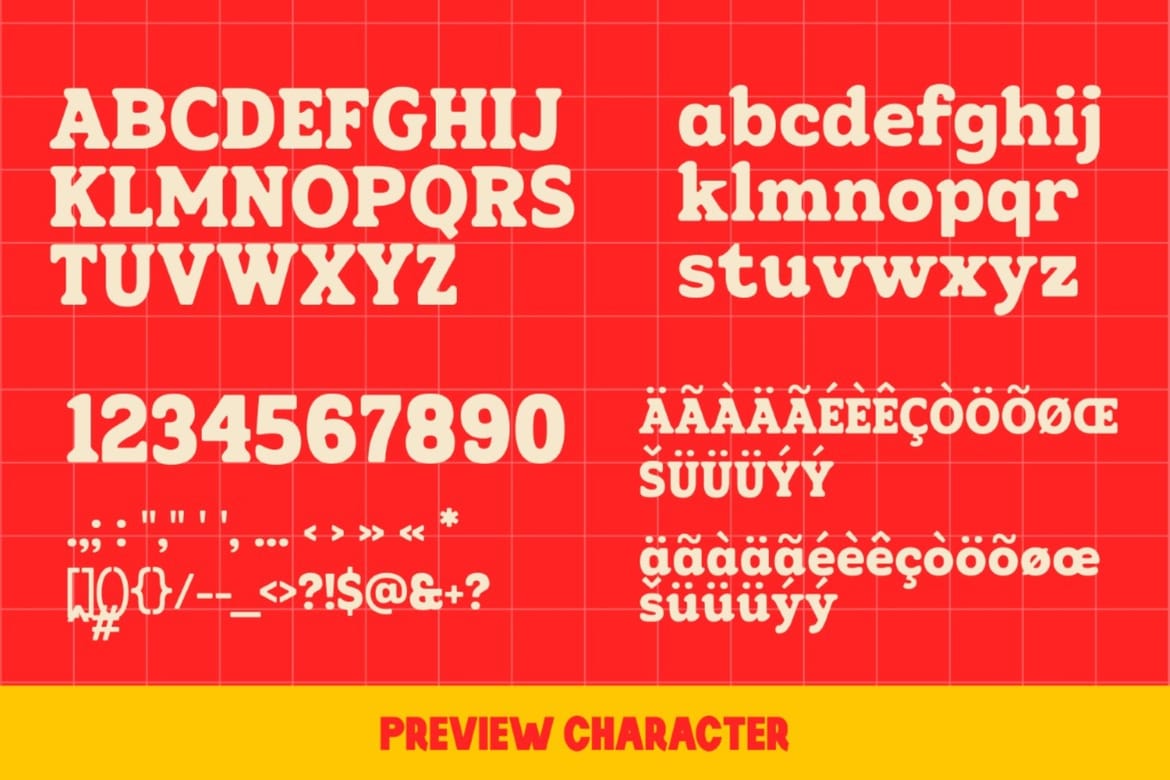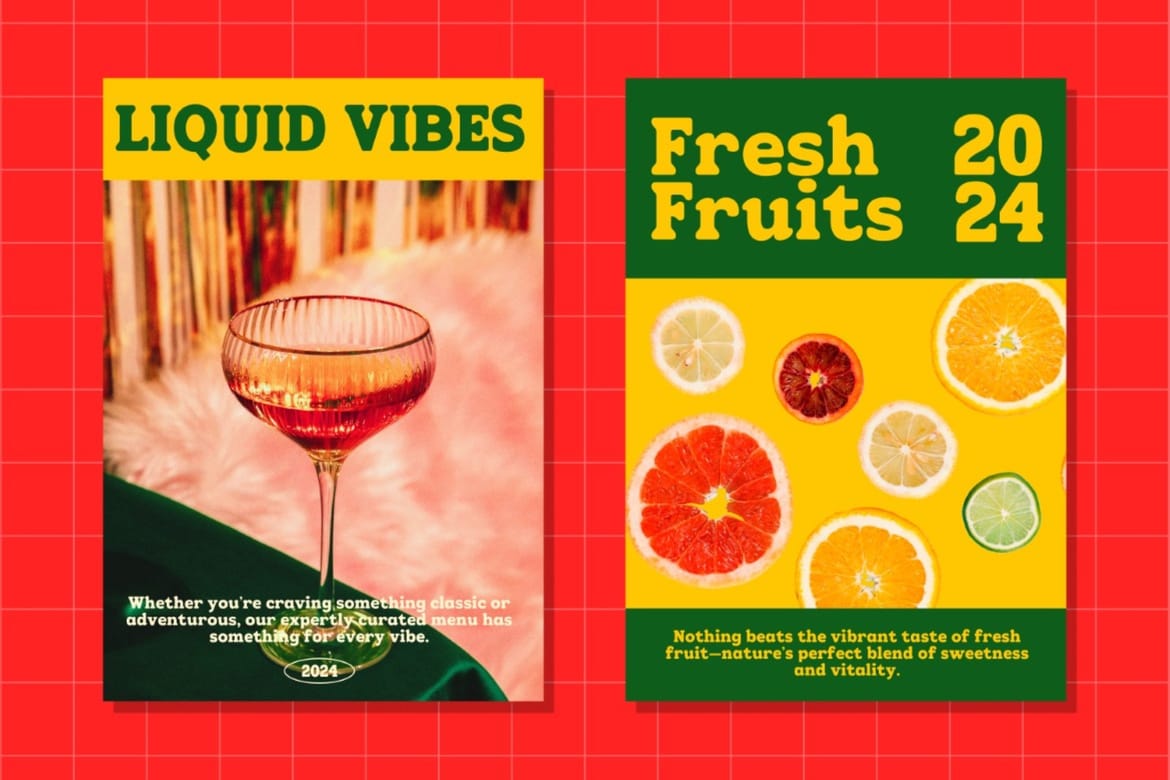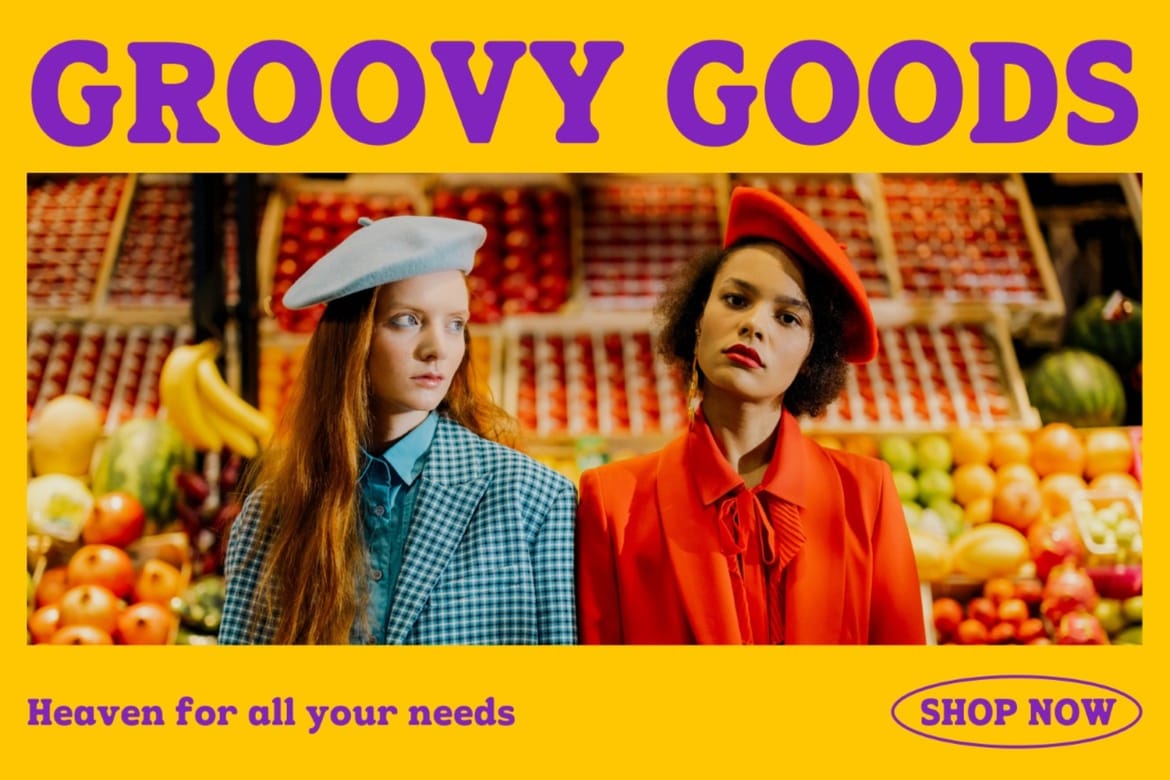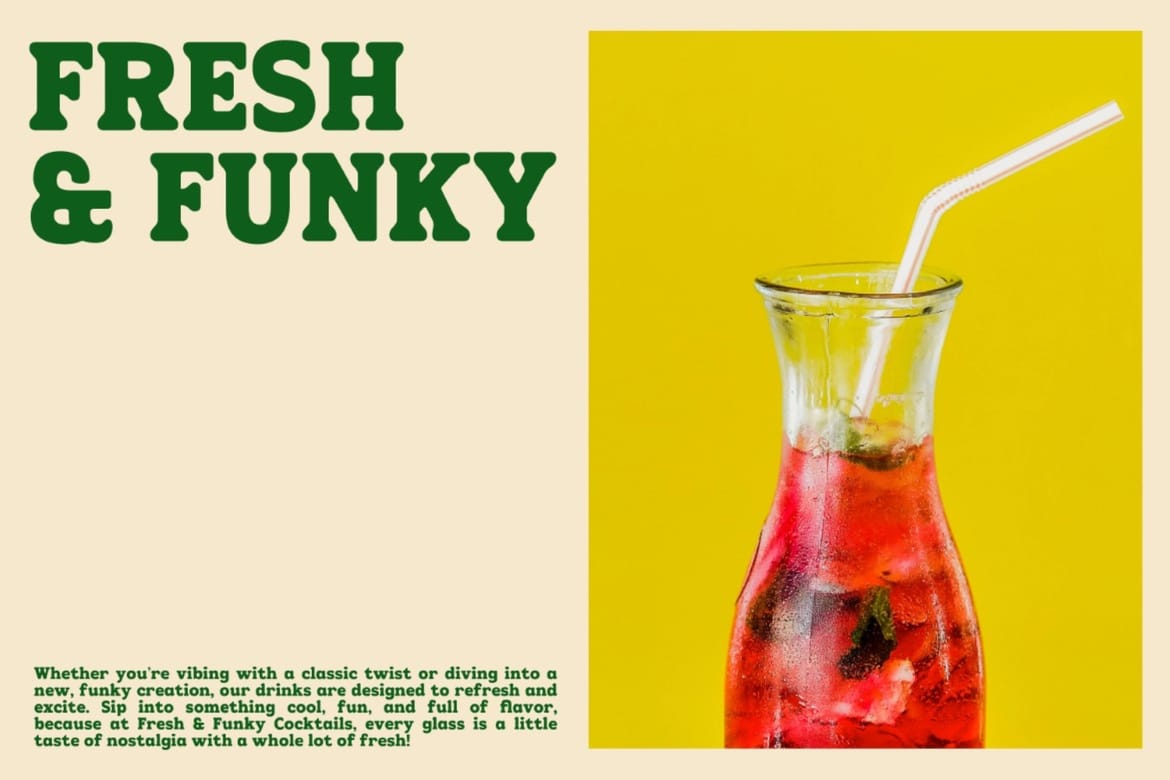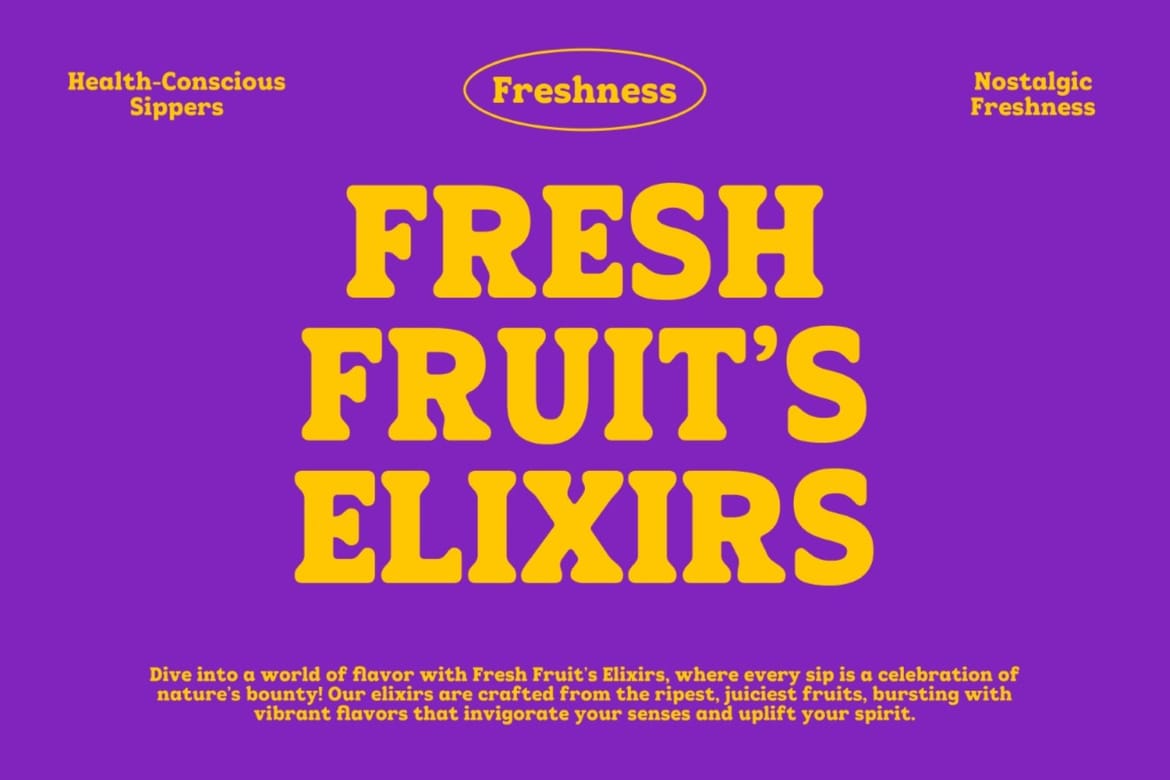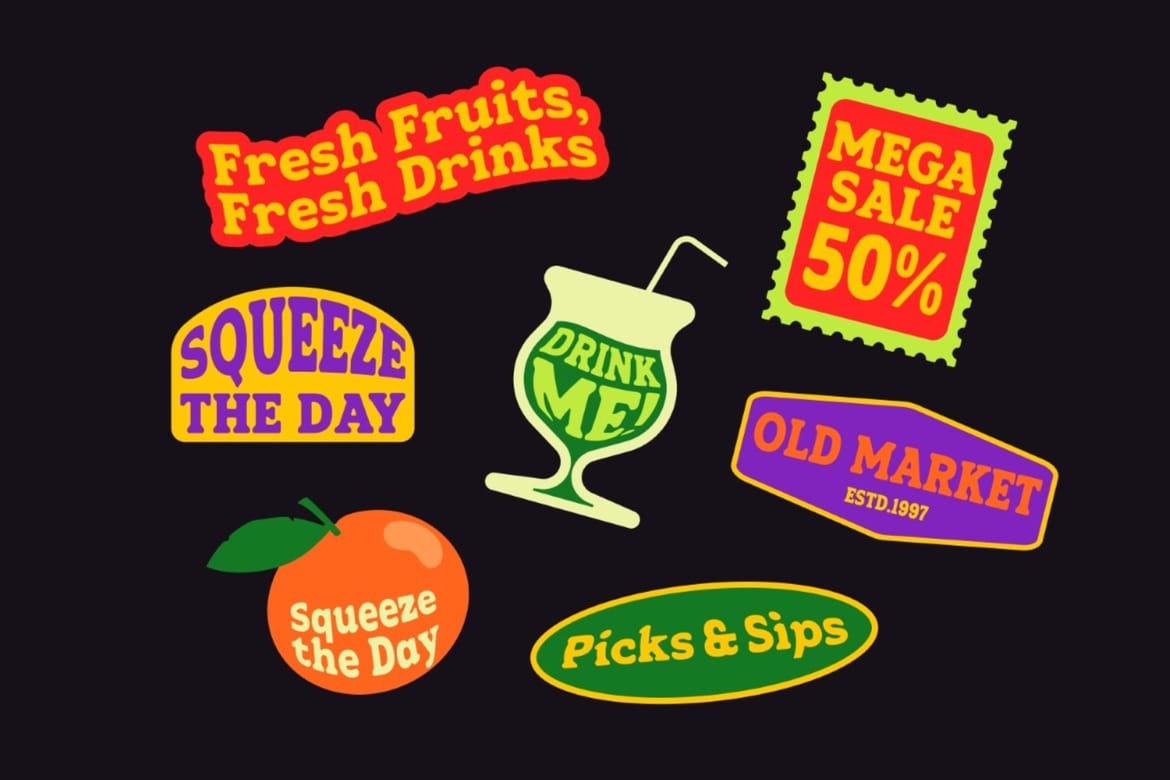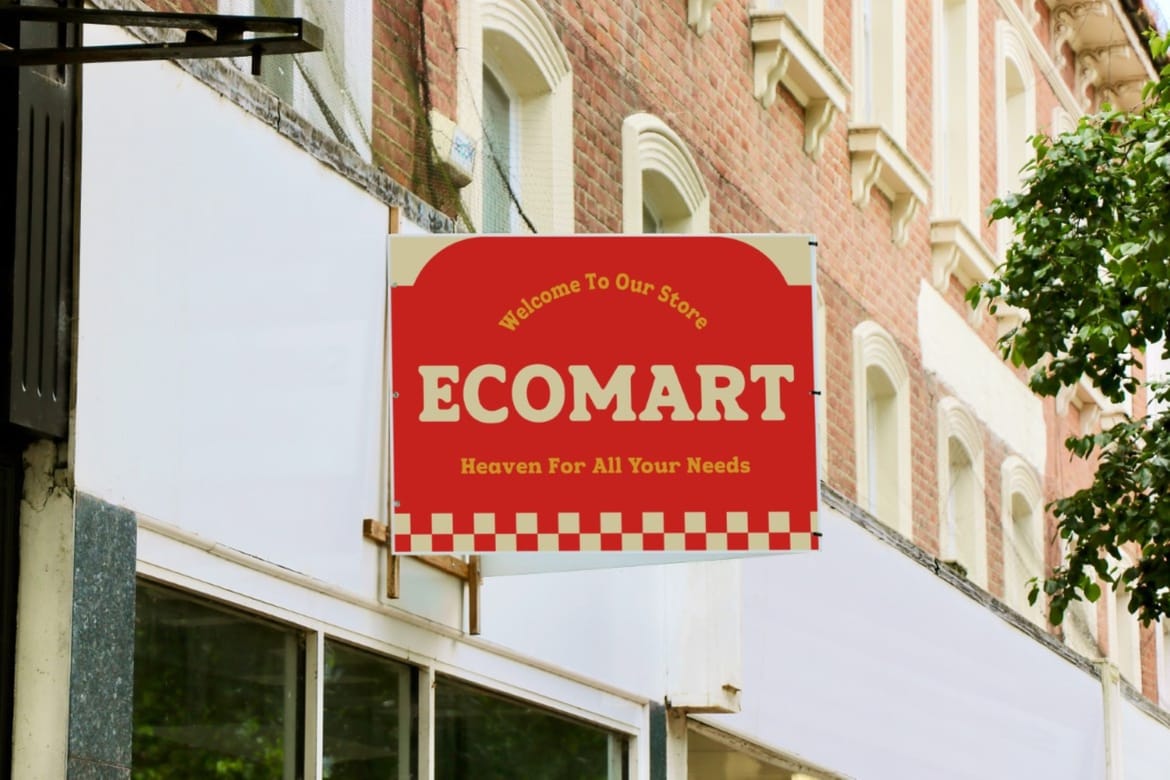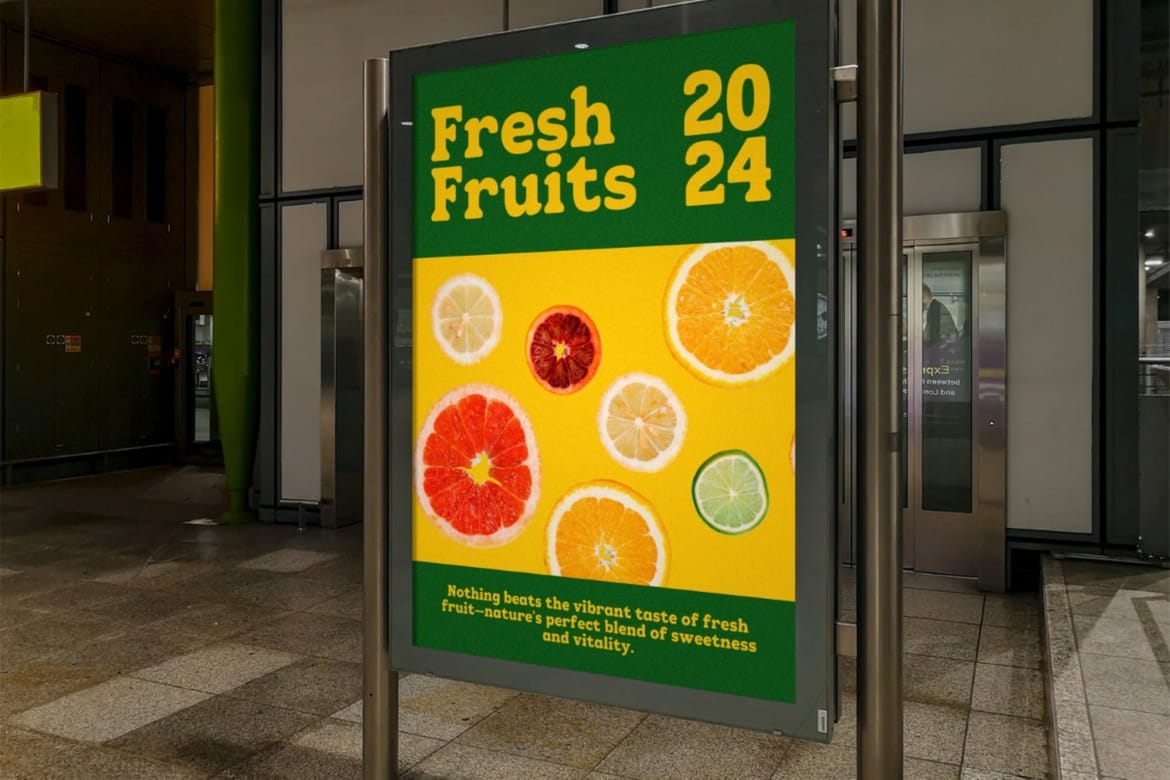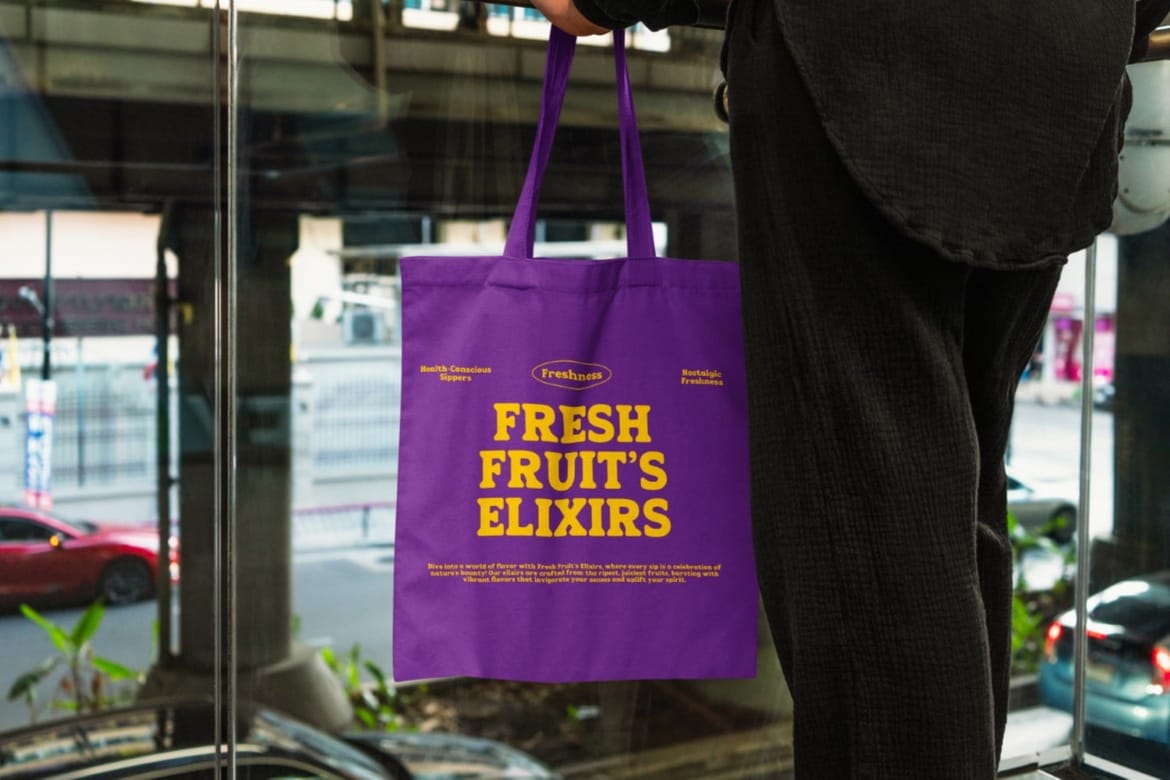
Juicy Fruty is a bold and retro display font that will add a burst of vintage flavor to your designs. Its playful curves and vibrant colors are reminiscent of classic 70s and 80s aesthetics. Perfect for creating eye-catching logos, posters, and packaging designs, Juicy Fruity is sure to make a statement.
Bold retro serif with a juicy vintage-inspired personality
Perfect for beverage branding, snack packaging, and playful food promotions
Thick shadowed letterforms create a sweet eye-catching look full of nostalgic energy